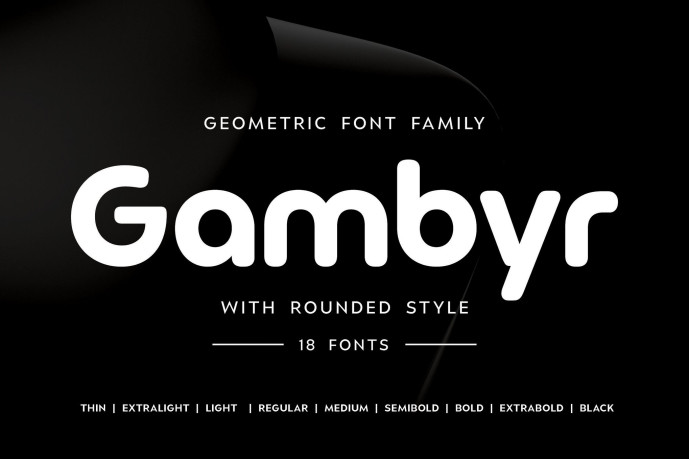
Gambyr Font Family is a modern geometric font family designed to combine clean structure, smooth curves, and contemporary elegance. Featuring balanced proportions and rounded letterforms, this typeface delivers a friendly yet professional appearance, making it an excellent choice for modern branding, editorial design, and digital applications.
Built with precision and versatility in mind, Gambyr blends the clarity of geometric typography with the warmth of rounded shapes. Its refined construction creates a clean and approachable aesthetic that feels both modern and timeless. The carefully crafted letterforms ensure excellent readability across a wide range of design environments.
Whether used for branding, logos, packaging, websites, mobile applications, or editorial layouts, Gambyr provides a sophisticated visual presence that adapts effortlessly to different creative needs. Its minimalist character allows it to shine in both bold headlines and detailed body text, offering exceptional flexibility for designers.
The rounded geometry gives Gambyr a welcoming personality while maintaining a professional appearance. This balance makes it suitable for technology companies, startups, creative agencies, corporate identities, and lifestyle products seeking a modern and approachable look.
As a complete font family, Gambyr offers consistency and harmony across multiple weights, helping designers create cohesive visual systems for both print and digital projects.